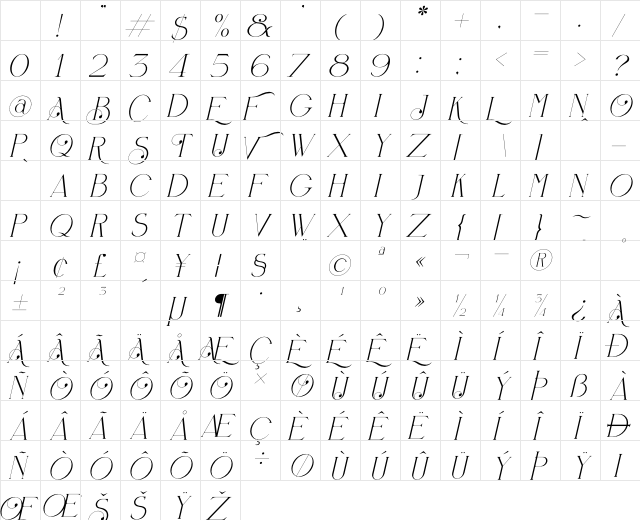
Bontias Italic Free Font
Bontias Italic
Foundry: Storytype Studio
Designer: Heru Utama Putra
Bontias Family
Design Context for Bontias
Bontias is a composed and adaptable typeface that performs quietly and consistently across a wide range of design contexts. The slanted form adds forward momentum and visual energy.
Pro Tip: Use Bontias for emphasis, pull quotes, and subheadings where its slanted energy can add rhythm to the layout.